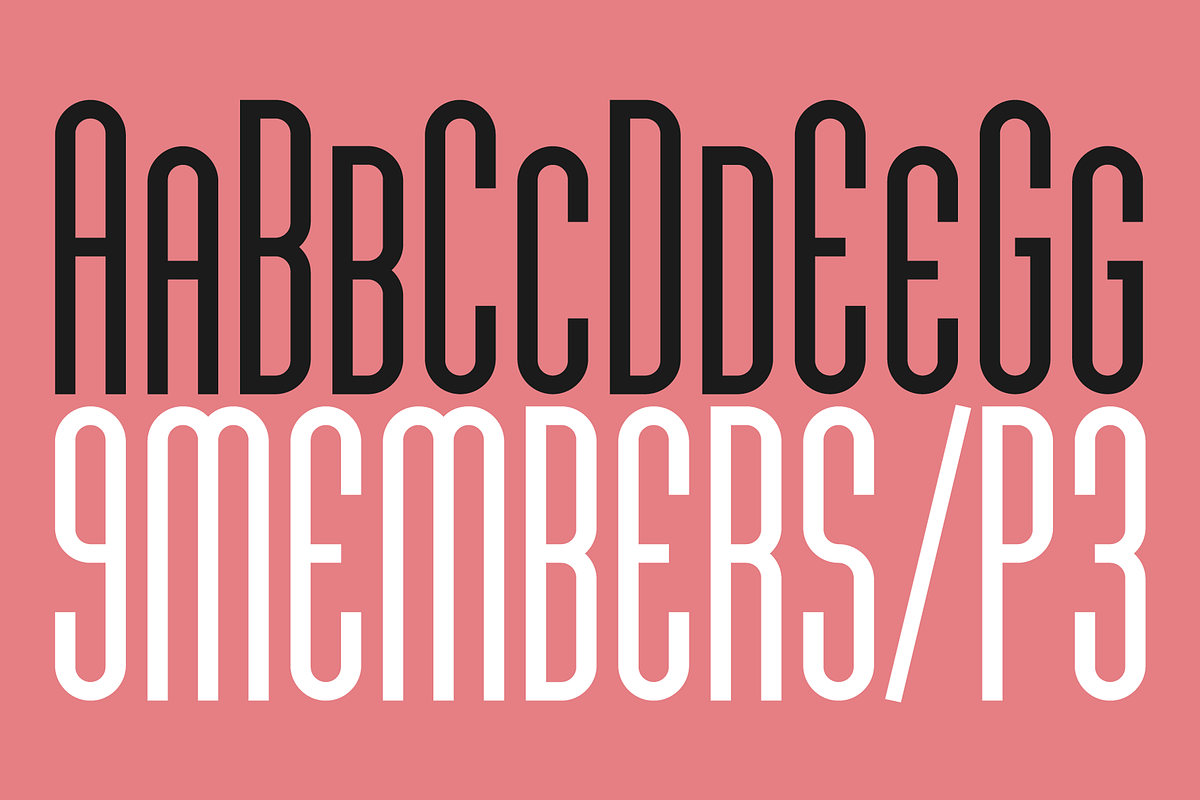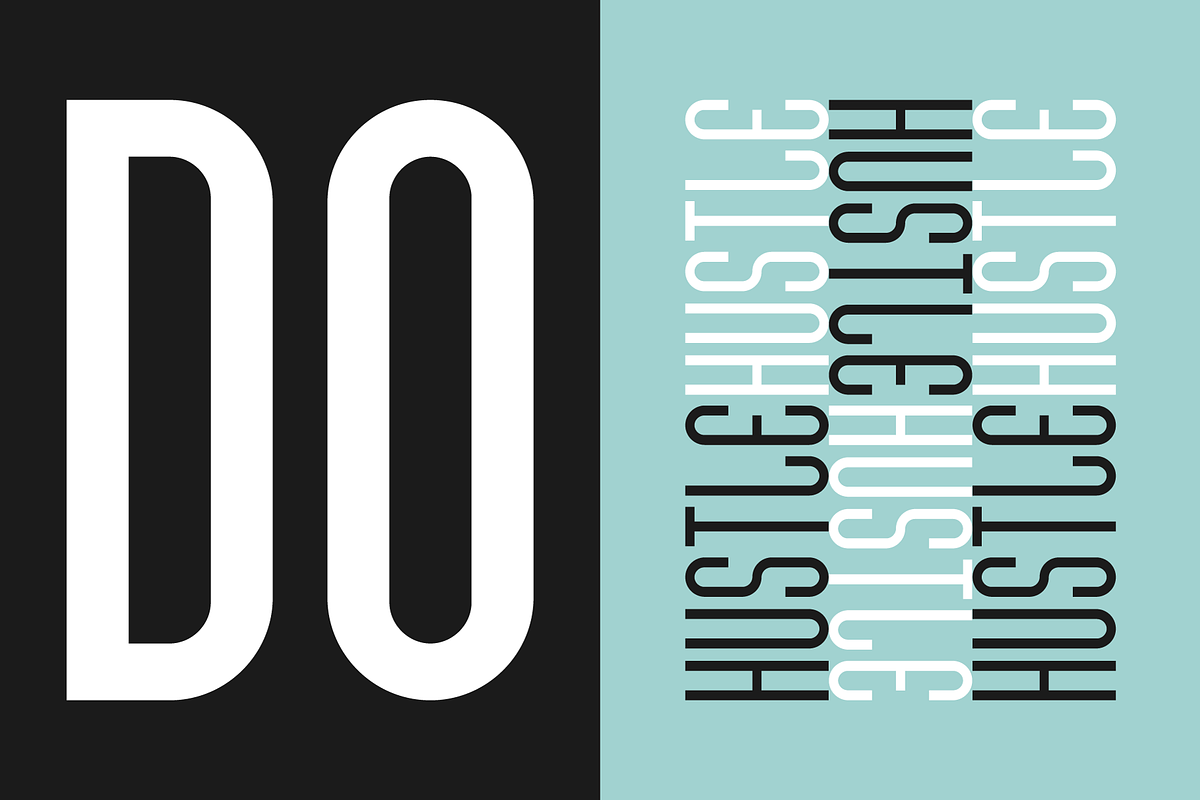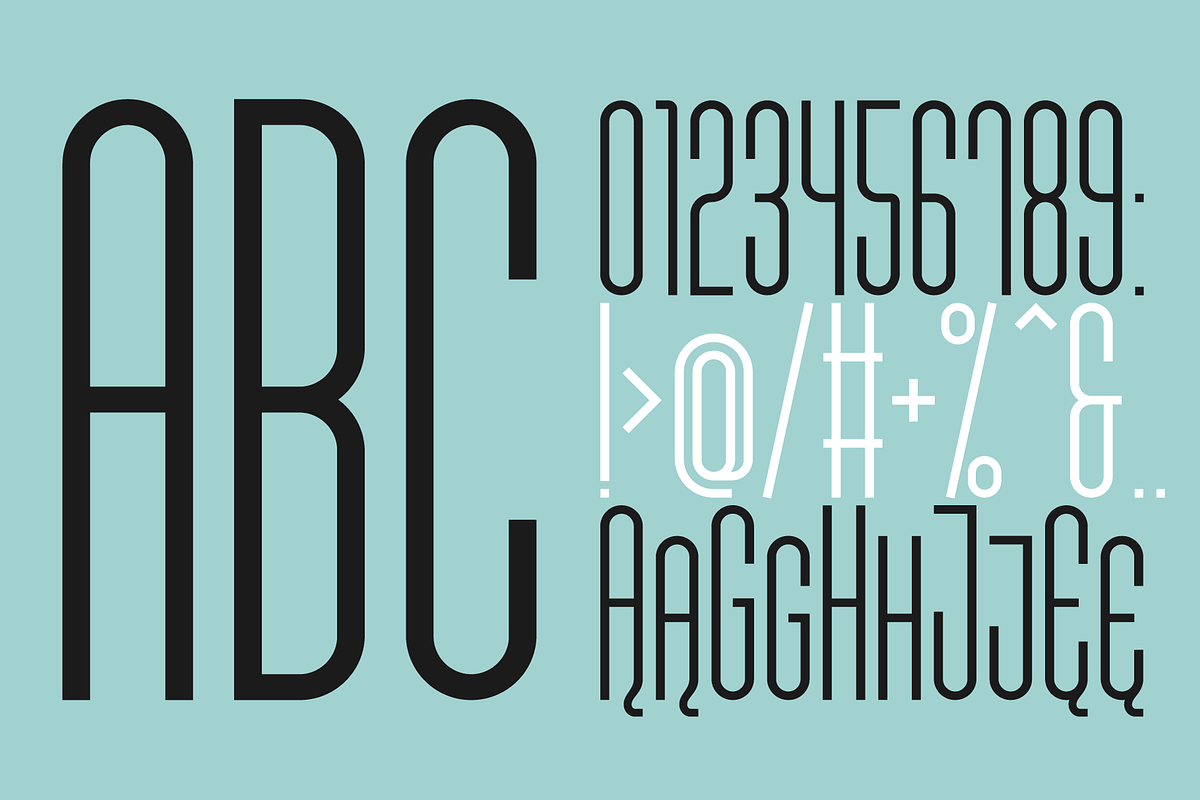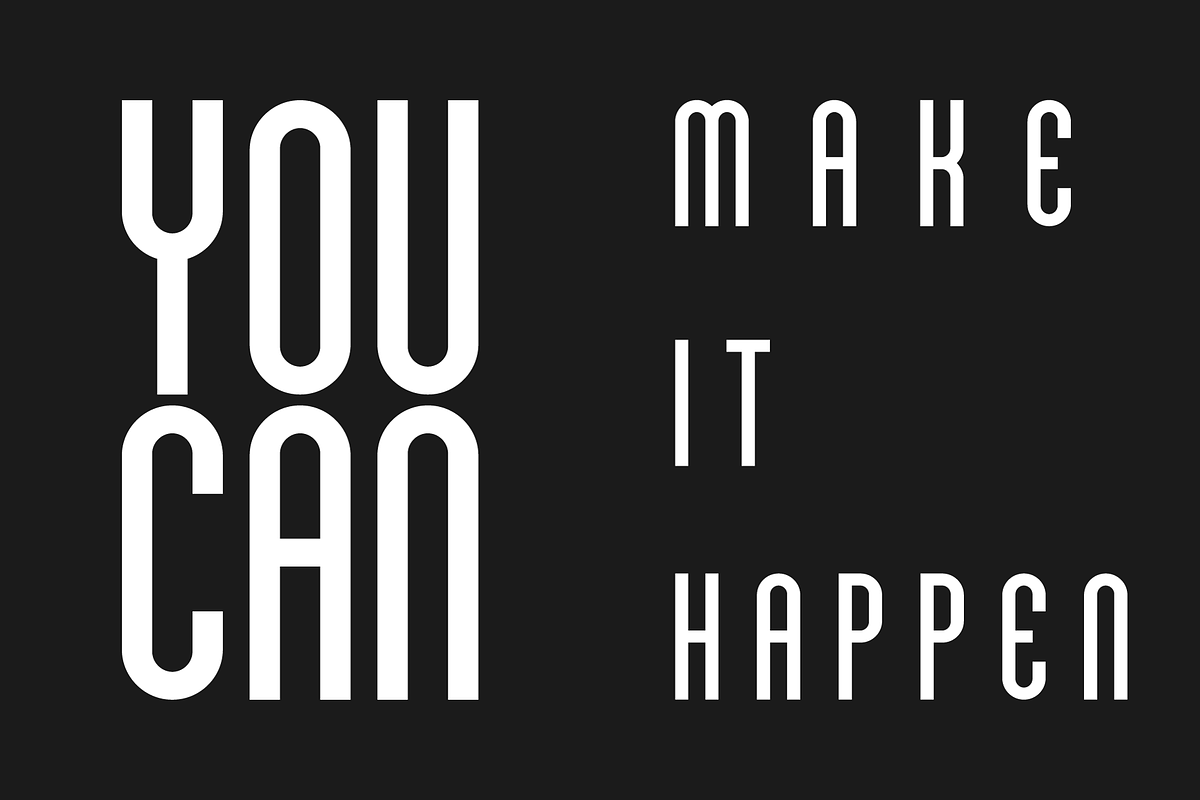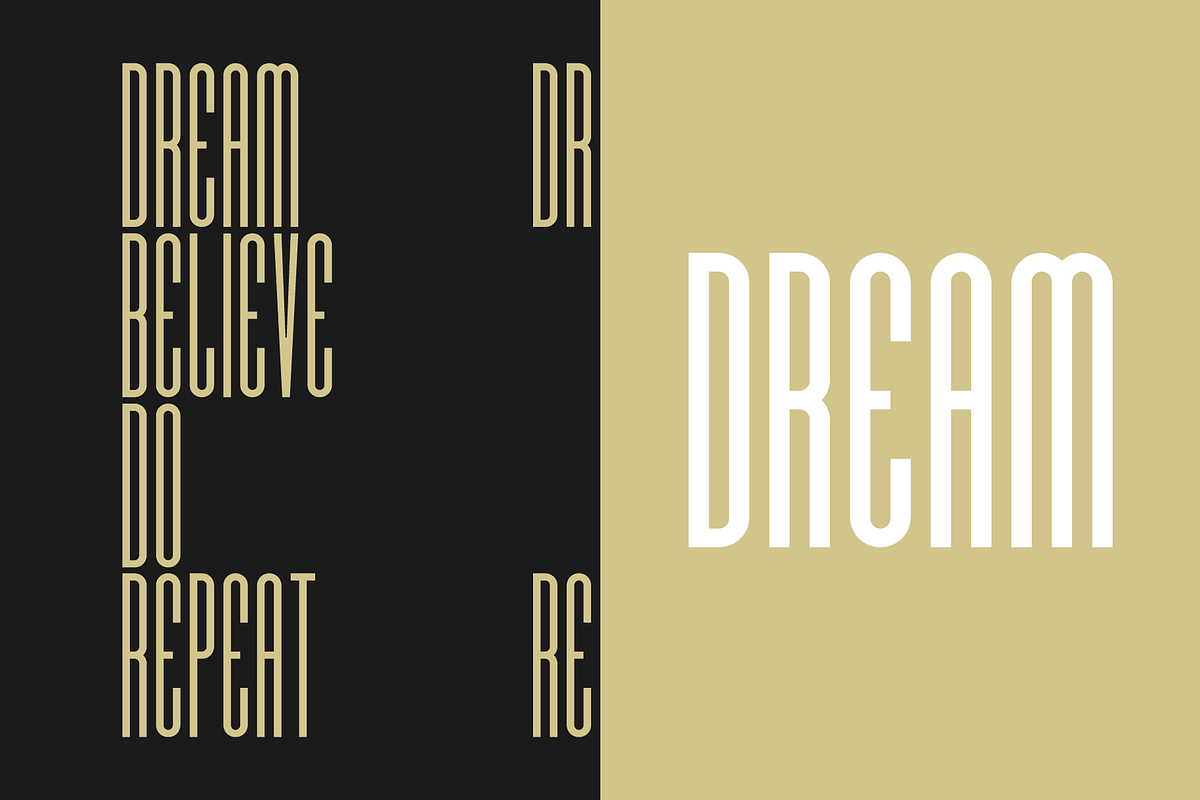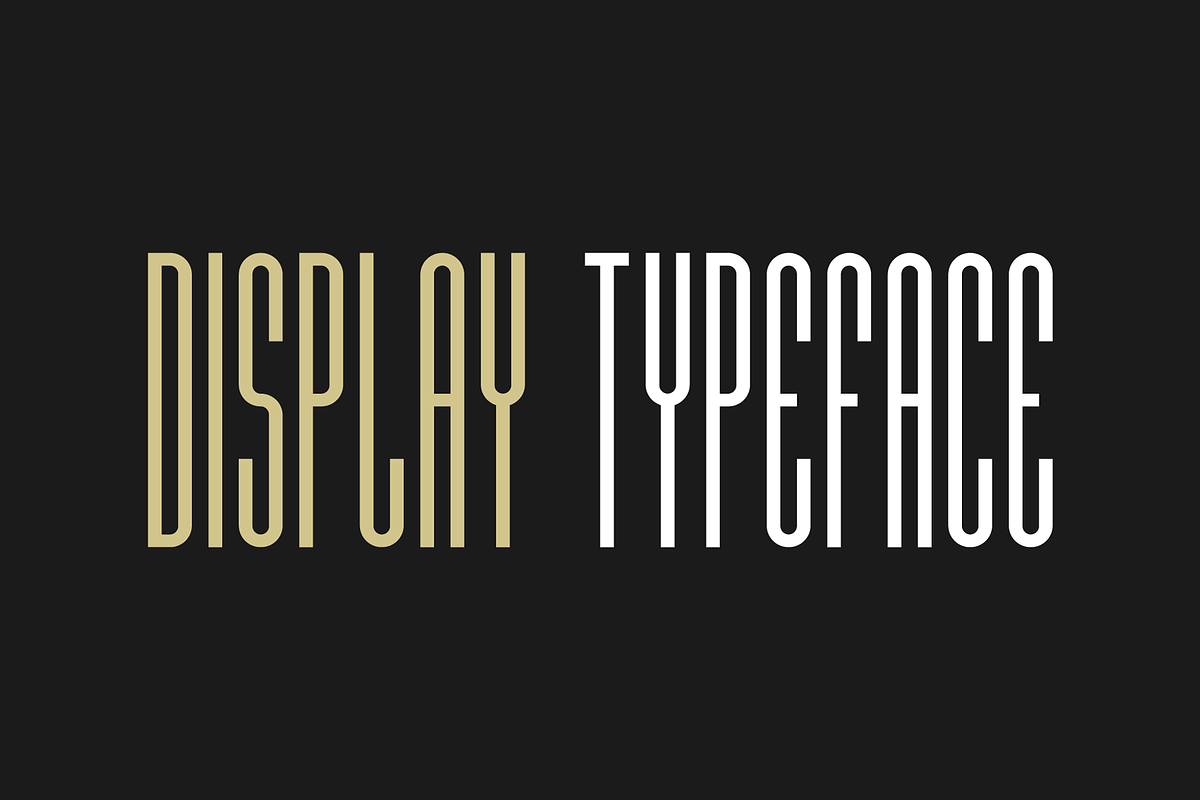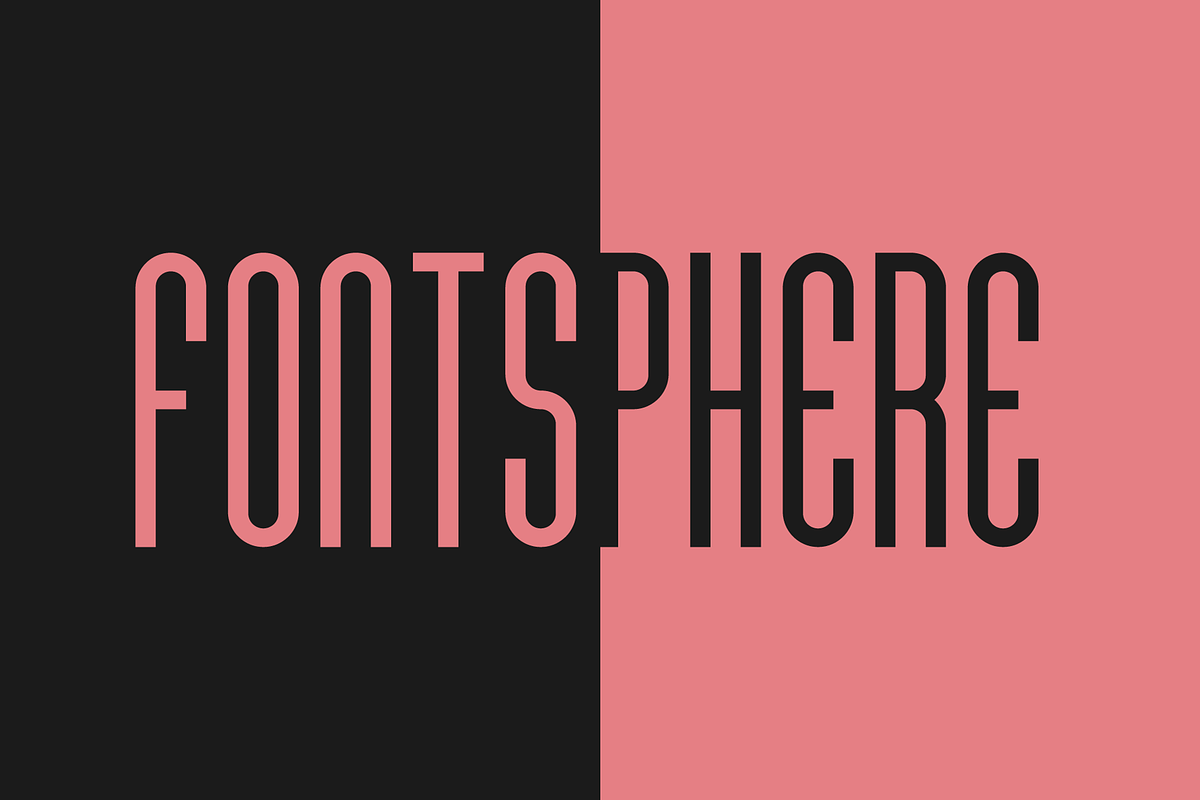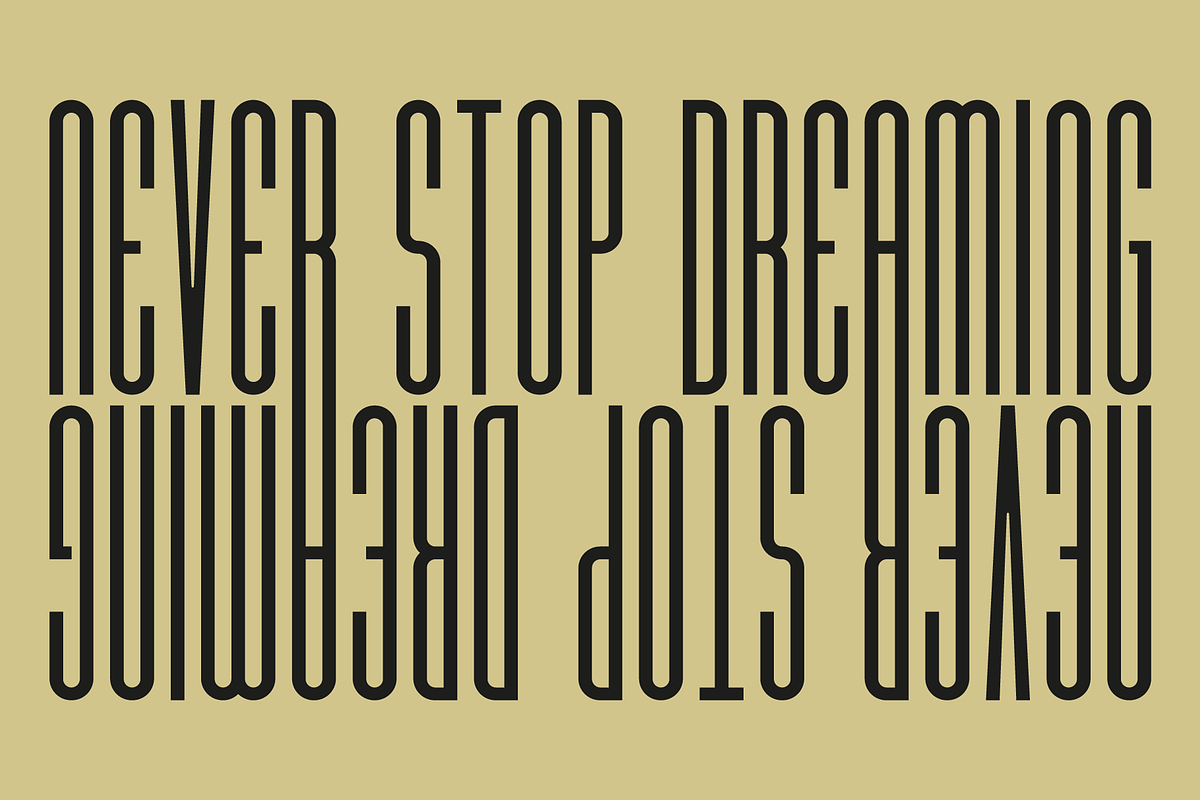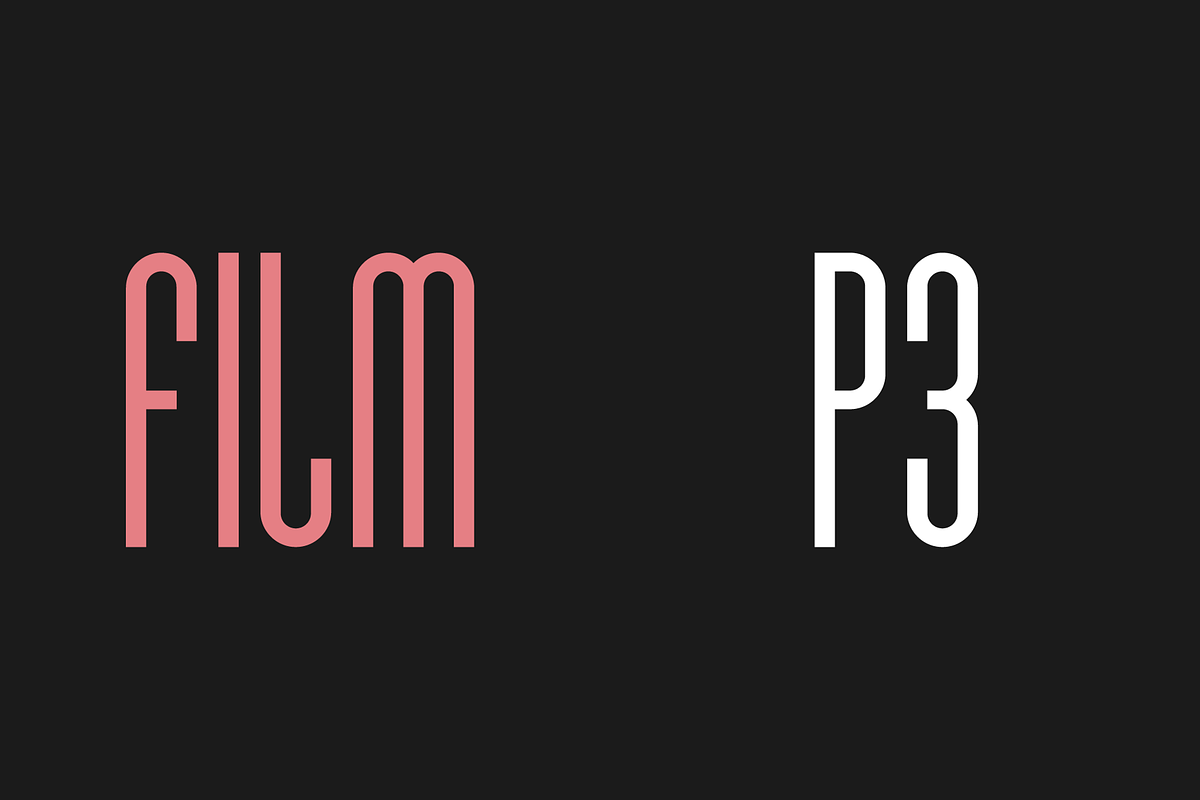
Film P3 Family: 9 styles
Film P3 - Ultra Condensed sans serif typeface. It refers to characteristic typefaces such as Film Poster or Film P2 (which were inspired by futuristic movie posters).
Film P3 is deliberately more versatile and designed to be used successfully in a huge variety of projects. In addition, the letters retain their unique and distinctive style, which allows them to stand out from the crowd.
The Film P3 family has 9 members that are complementary and allow the expression of the projects to be very varied and adapted for appropriate use. They look good in many sizes, single words, slogans, titles, sentences as well as longer texts.
Fonts include multilingual support, numerals, and a large range of special characters.
Film P3 typeface offers many creative possibilities in graphic design and digital art. For print, brand identity, web design, and much more.
Film P3 - Font Family:
Film P3:
- Film P3 Light
- Film P3 Regular
- Film P3 Bold
Film P3 Narrow:
- Film P3 Narrow Light
- Film P3 Narrow Regular
- Film P3 Narrow Bold
Film P3 Wide:
- Film P3 Wide Light
- Film P3 Wide Regular
- Film P3 Wide Bold